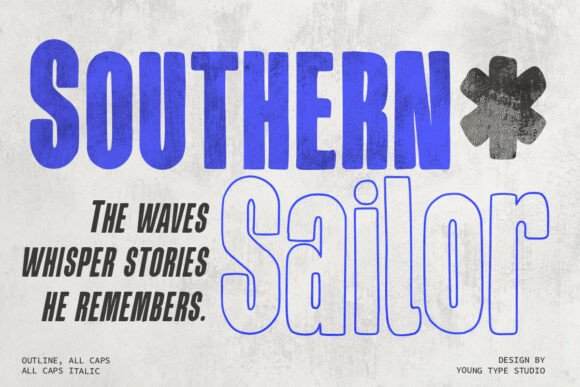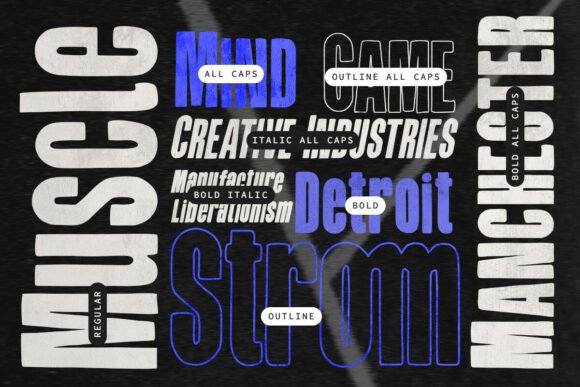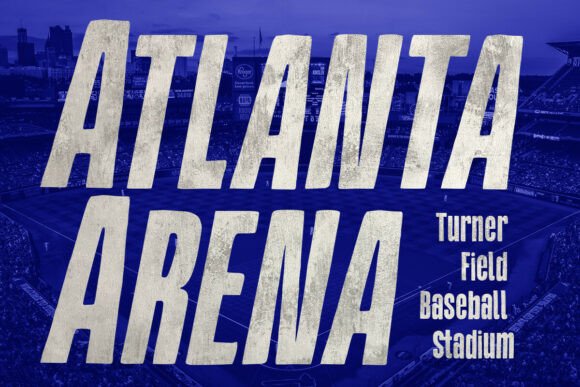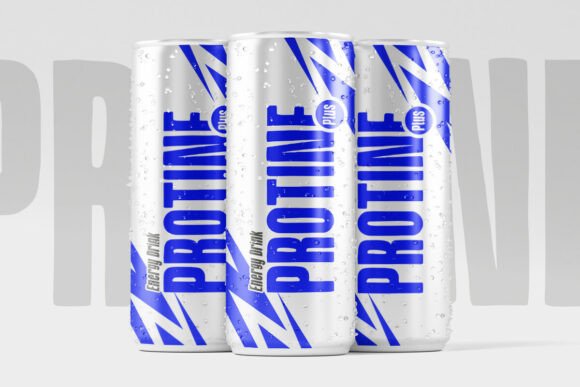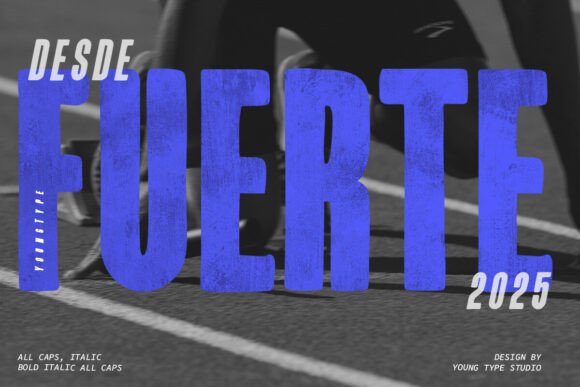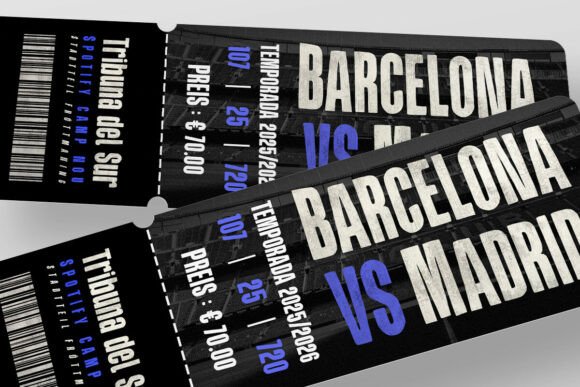
Introduction to Breakbeat Ringtone Font
You’ve finally nailed that perfect design concept, but something’s missing – a bold, eye-catching font that captures the essence of your creative vision. That’s where the Breakbeat Ringtone Font comes in, a game-changing design resource that’s about to elevate your work to the next level.
| 📌 Product Name | Breakbeat Ringtone Font |
| 👤 Author | Youngtype |
Imagine having a font that’s not just a tool, but a statement piece that screams energy, rebellion, and creativity. Breakbeat Ringtone Font is that and more, offering a unique blend of raw, gritty texture and sleek, modern design. With ten styles to choose from, this versatile font is perfect for music-themed designs, streetwear branding, posters, and bold headlines.
Key Features of Breakbeat Ringtone Font
- Breakbeat Ringtone Font is a unique, customizable font that can be used for a variety of applications, including music and audio-related projects.
- Includes a range of special characters and symbols, perfect for adding a touch of creativity to your design.
- Designed to be highly legible, even at small sizes, making it ideal for use in ringtones, alerts, and other small-scale applications.
- Features a high-resolution design, suitable for use at resolutions up to 300 DPI.
Honest Review: Breakbeat Ringtone Font
I recently stumbled upon the Breakbeat Ringtone Font and was excited to give it a try. As a designer, I’m always on the lookout for high-quality design resources to elevate my creative projects. This font definitely caught my attention with its futuristic vibe.
- ✨ High-quality graphics: The font’s design is crisp and clean, making it perfect for digital projects.
- ✨ Versatility: It’s suitable for a wide range of creative projects, from futuristic-themed websites to innovative apps.
- ⚠️ Limited style options: While the font itself is impressive, I found the style options to be somewhat limited, which may not be suitable for all projects.
- ⚠️ No transparent background: The font’s design doesn’t lend itself well to transparent backgrounds, which may be a drawback for some designers.
Overall, I’d say the Breakbeat Ringtone Font is a great addition to any designer’s toolkit. While it may have some limitations, its high-quality graphics and versatility make it a valuable resource for creative projects.
Getting the Most Out of the Breakbeat Ringtone Font
For optimal results, use the Breakbeat Ringtone Font in conjunction with other design elements that complement its unique style. Experiment with different font sizes, colors, and arrangements to create a visually appealing design.
The Breakbeat Ringtone Font is ideal for various creative projects, including music-related promotions, fashion designs, and technology branding. Its unique style and high-quality design make it a valuable resource for designers and artists.